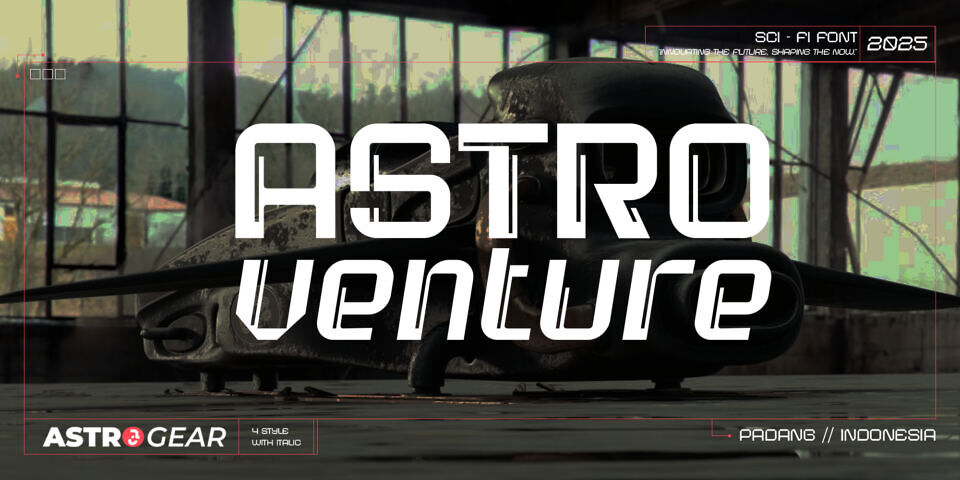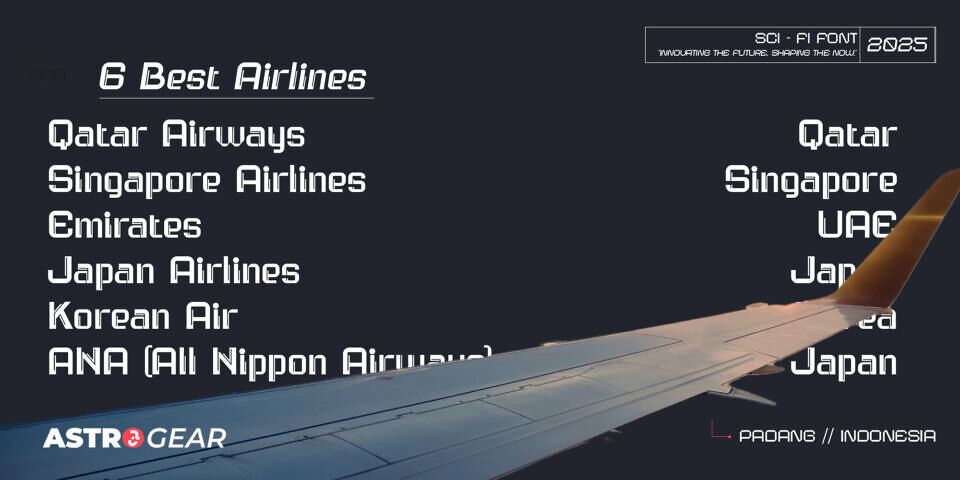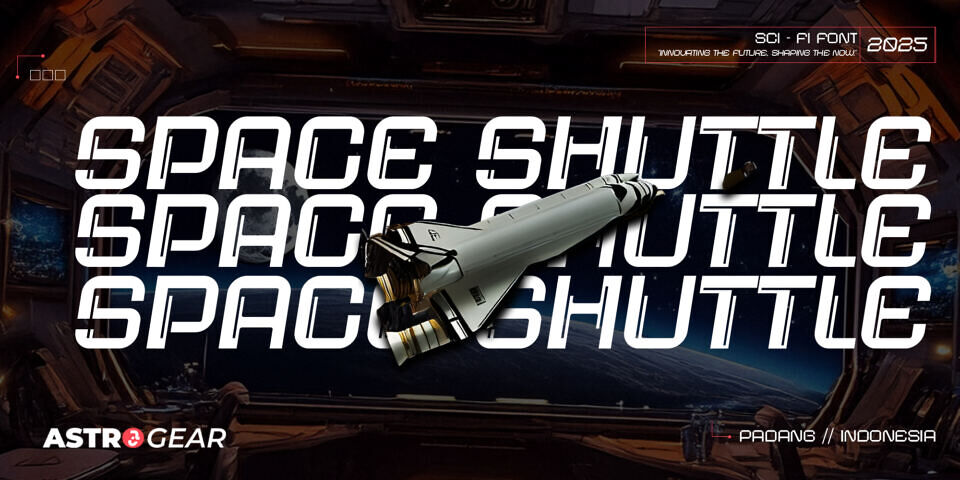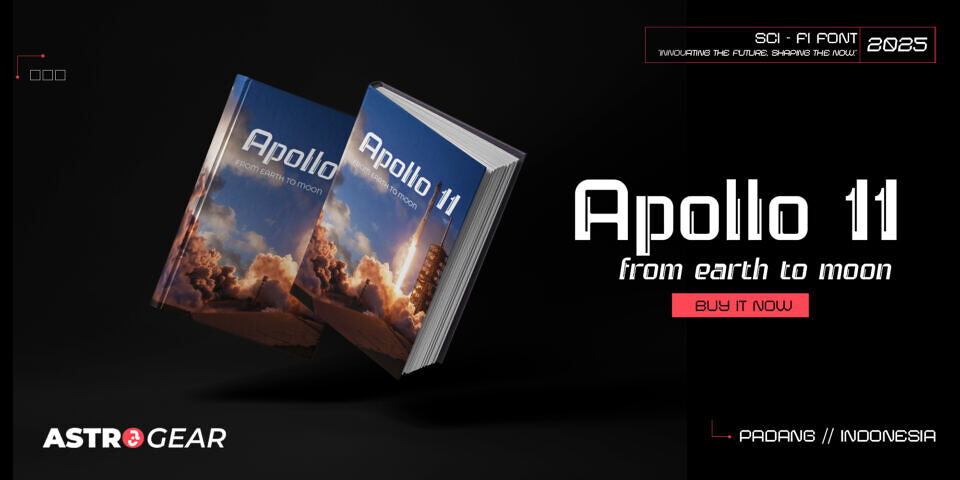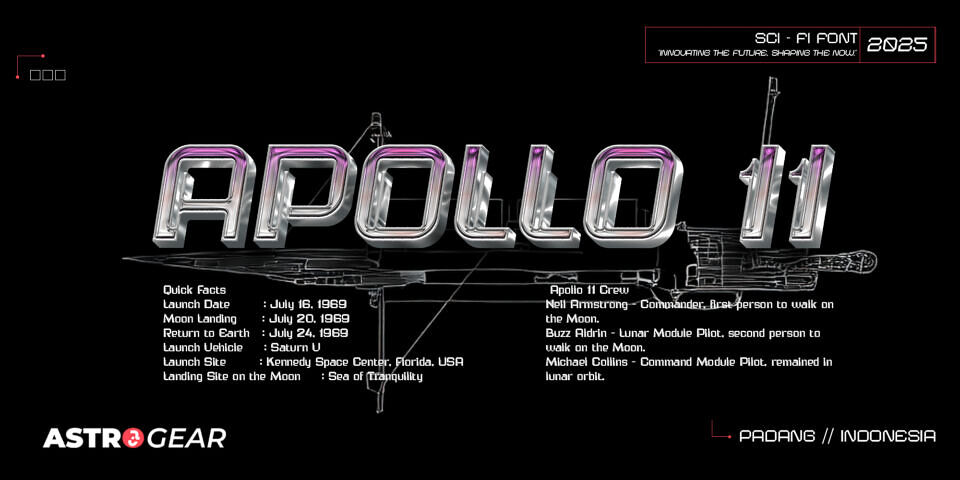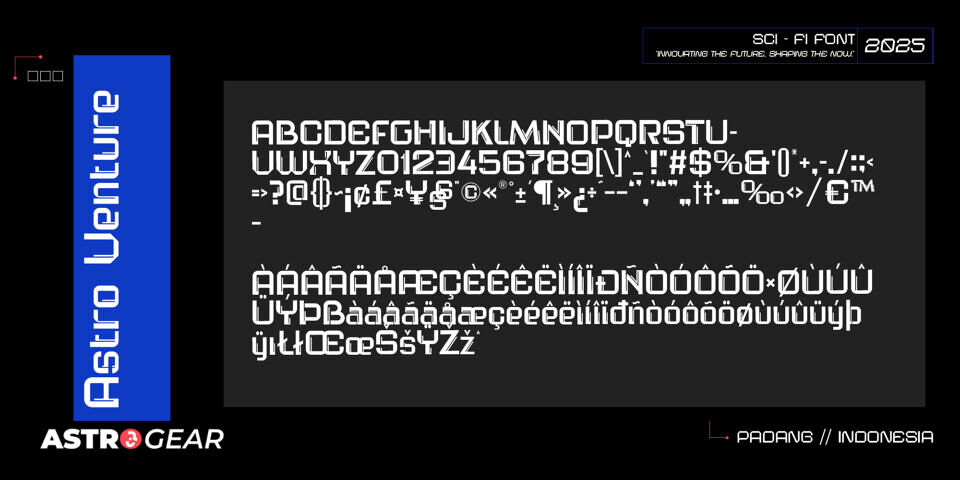
Introducing Astro Venture, a forward-thinking typeface engineered for bold creatives. Designed with industrial precision and modern aesthetics, Astro Venture blends sharp, tech-inspired angles with smooth, structured curves, delivering a versatile font with a futuristic edge.
Crafted in triple weights, this typeface is built for creators who want their visuals to stand out—strong, modern, and unmistakably futuristic.Perfect for display titles, branding concepts, posters, user interfaces, sci-fi themes, and any design that demands a sleek, modern identity.